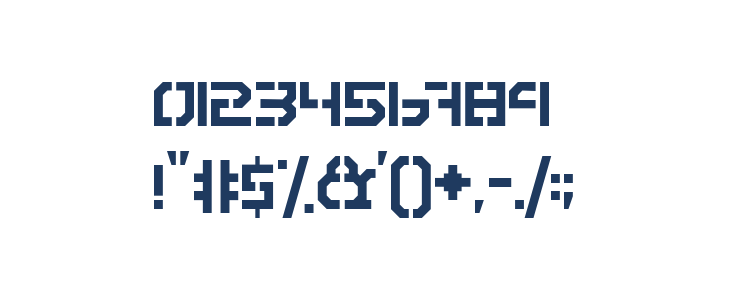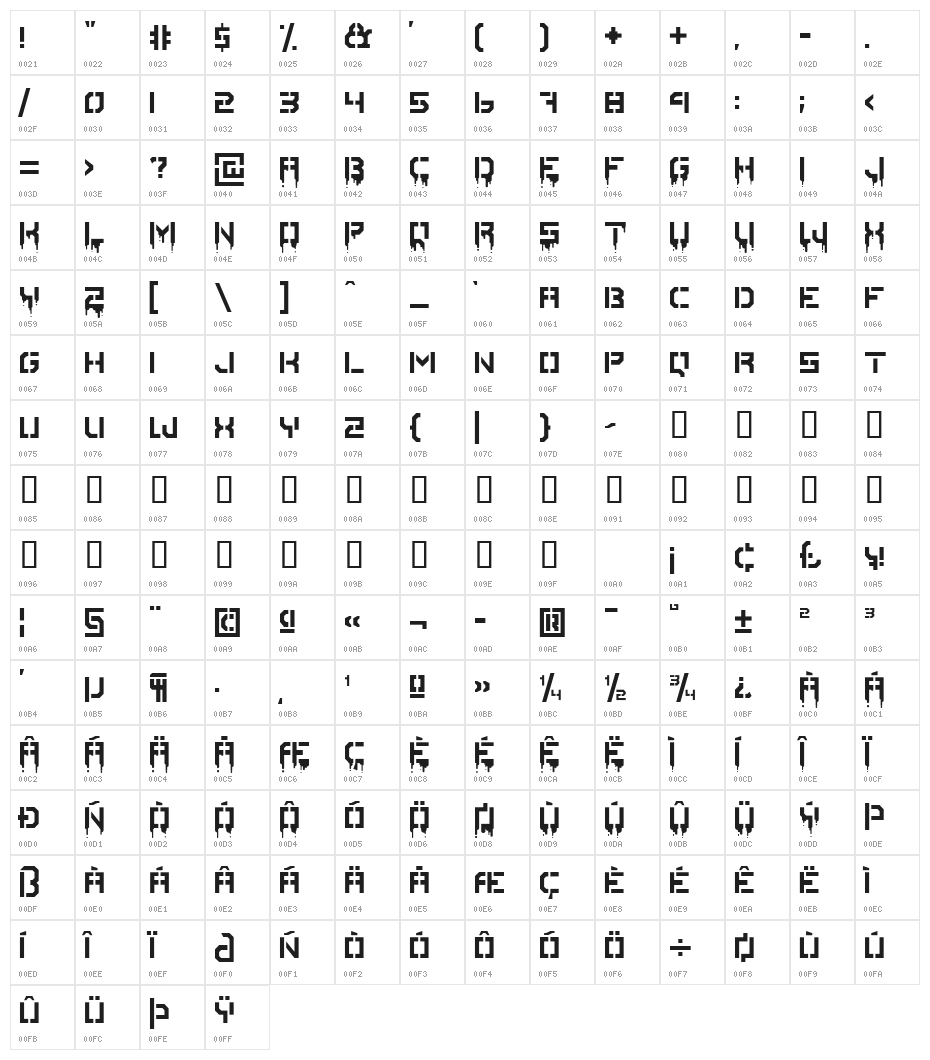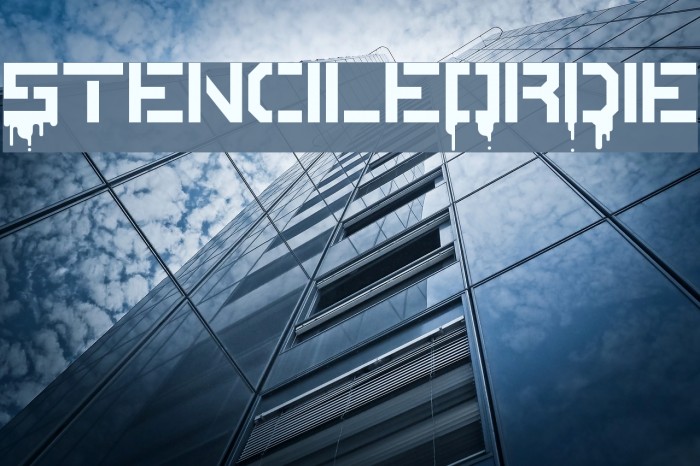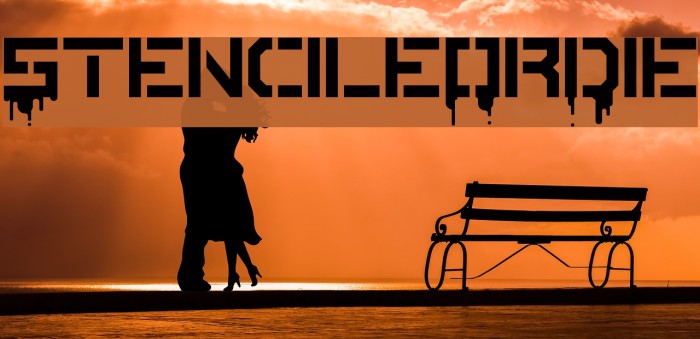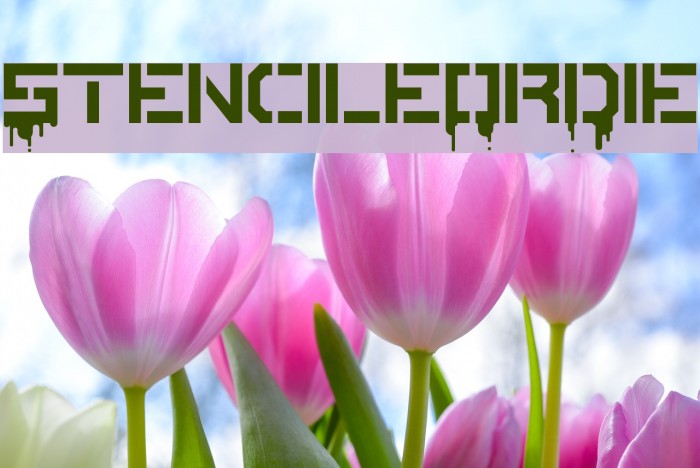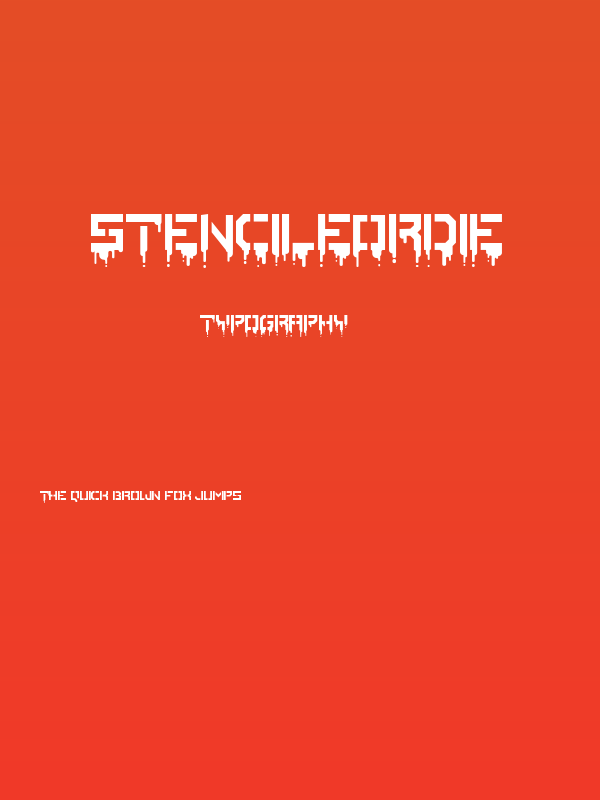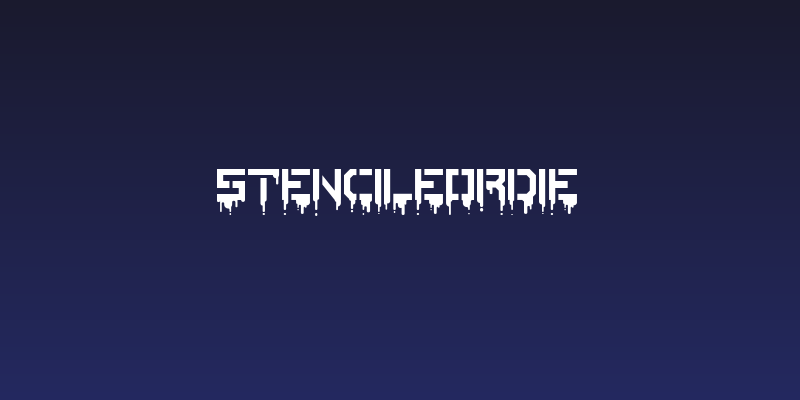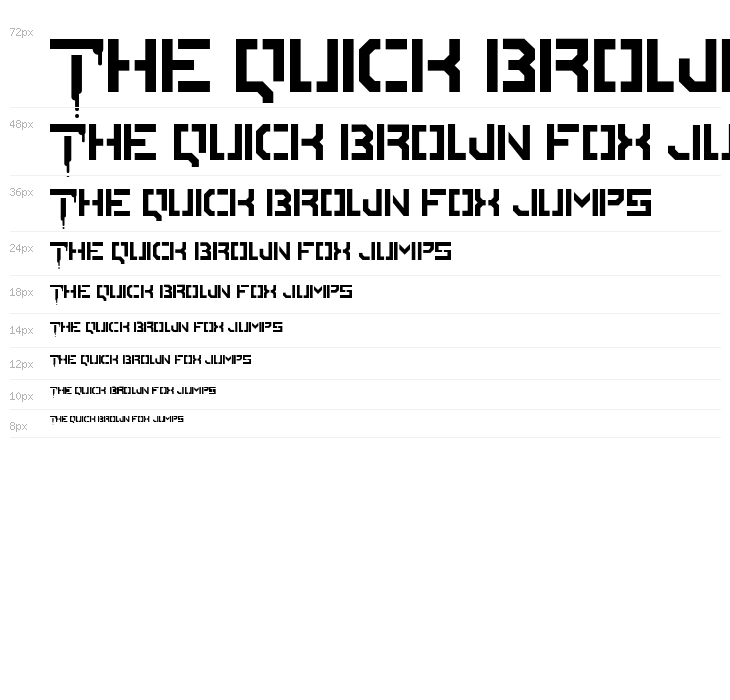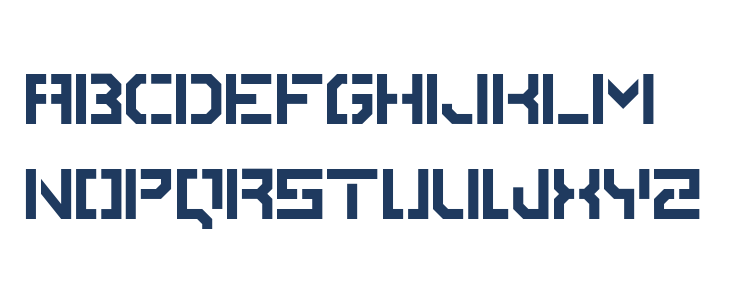
StencileOrDie Font
StencileOrDie Description
This font features a bold, stencil-inspired design with a distinct urban and industrial feel. The uppercase letters have a unique dripping effect, reminiscent of graffiti or paint drips, adding a dynamic and edgy touch. The lowercase letters and numbers maintain a consistent stencil style, with clean, sharp edges and geometric shapes. The special characters complement the overall aesthetic, making it suitable for projects that require a strong, impactful visual statement. The font's design is both modern and rebellious, perfect for creative and unconventional uses.
| Overall Style | Modern, Urban, Edgy |
| Proposed Projects | Ideal for street art designs, urban-themed posters, edgy branding, and music album covers. |